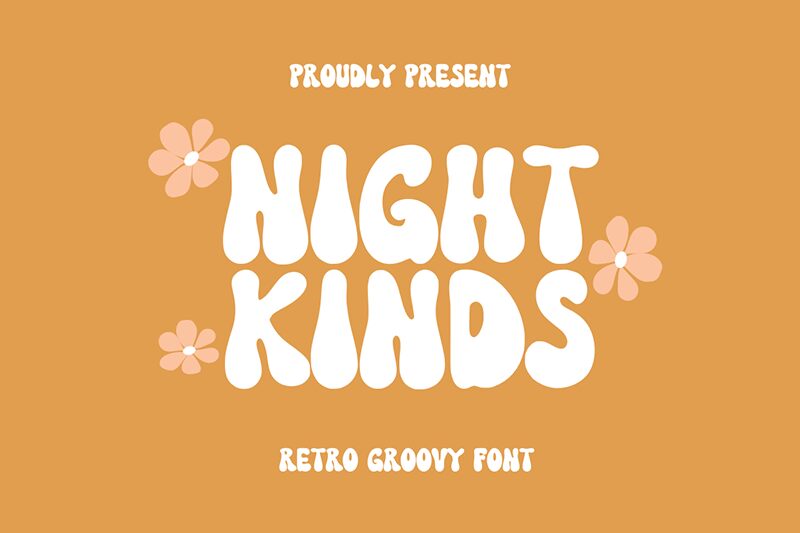
NightKinds
Night Kinds font by Muhammad Yafinuha is all about entertaining audiences with words. It has all the qualities one expects in a groovy font: quirky, smooth, rounded, and retro-inspired letters. This is without forgetting a well-balanced and dense style which makes this display font stand out in its own way.
For giving night events their titles or sharing advertising posters for an upcoming party; use this free font! Organizers of music festivals will have a blast playing around with Night Kinds just like venues for stand-up comedy nights or karaoke ones. Whether it’s an Instagram or Facebook post that needs to catch some eyes – Night Kinds does the job!